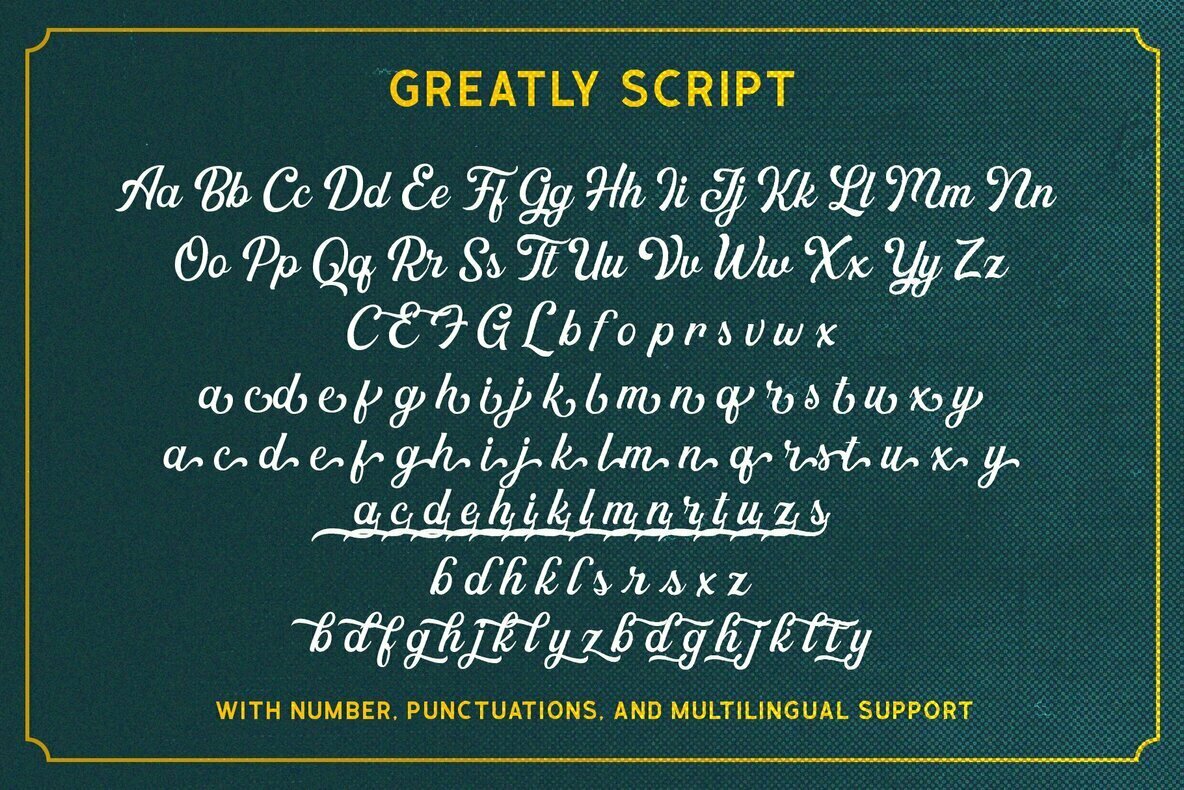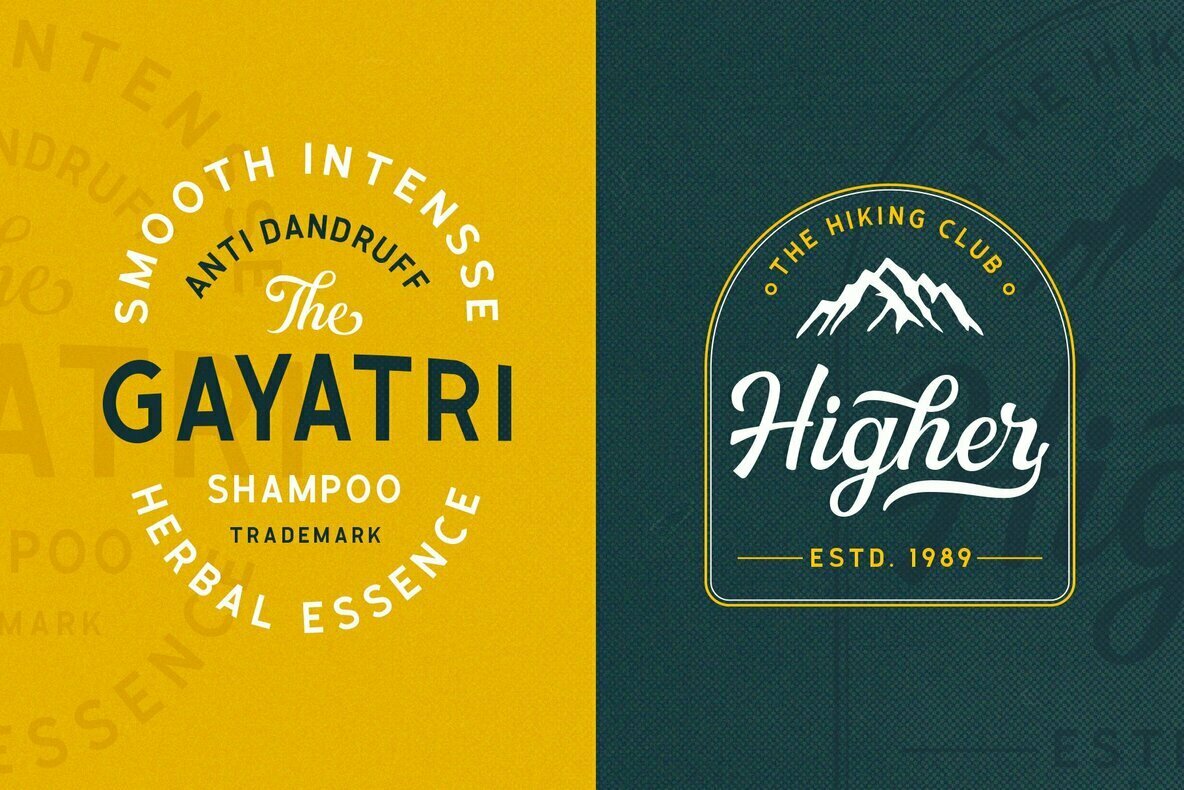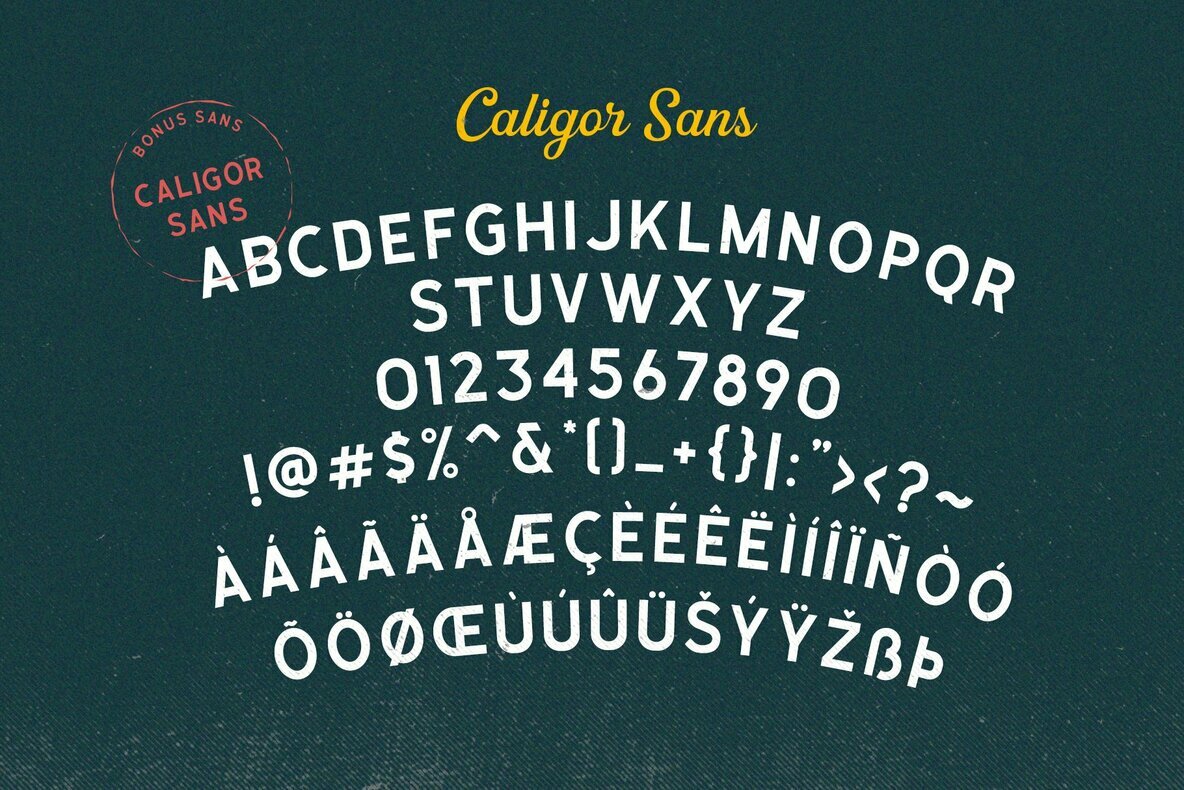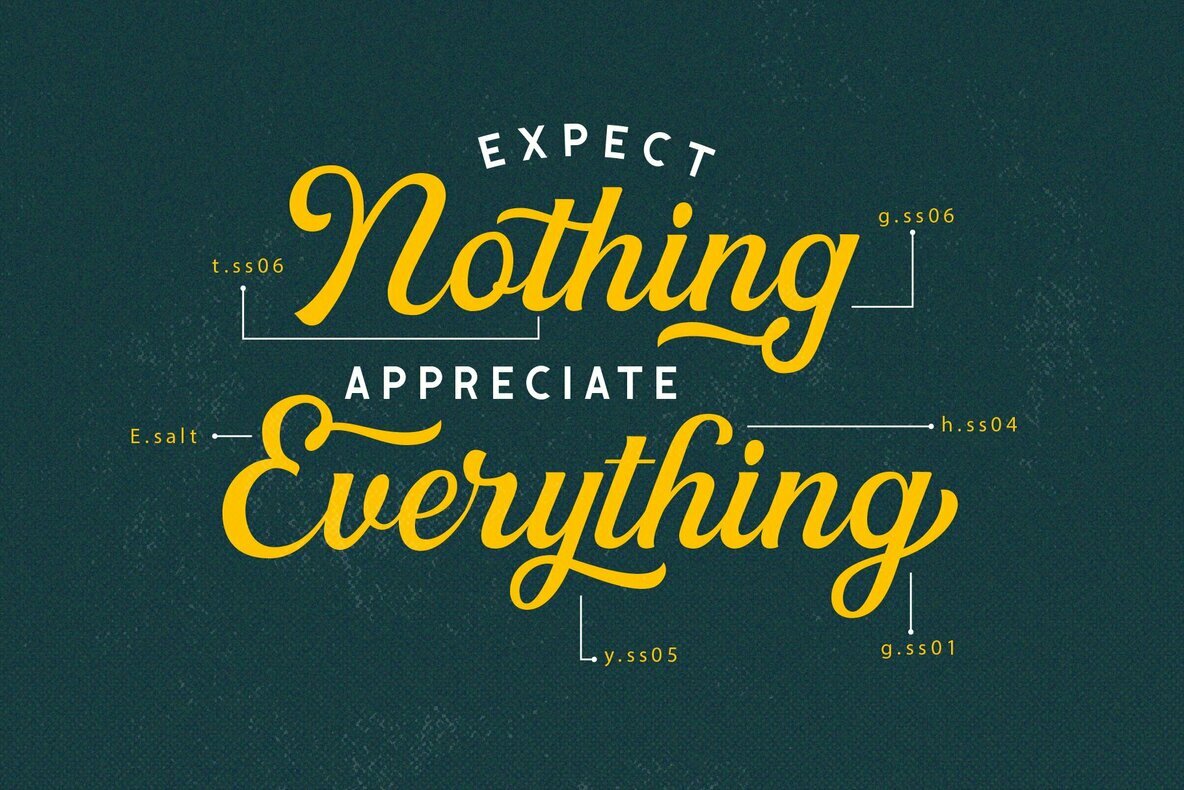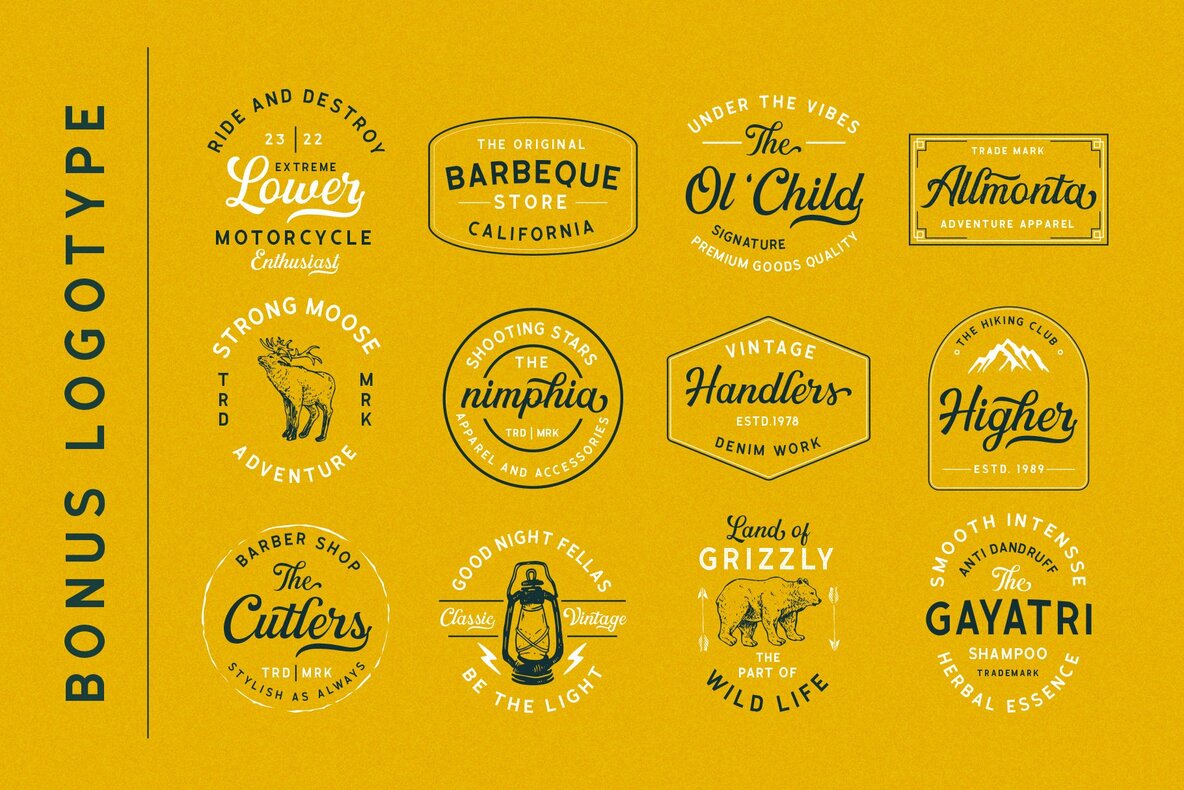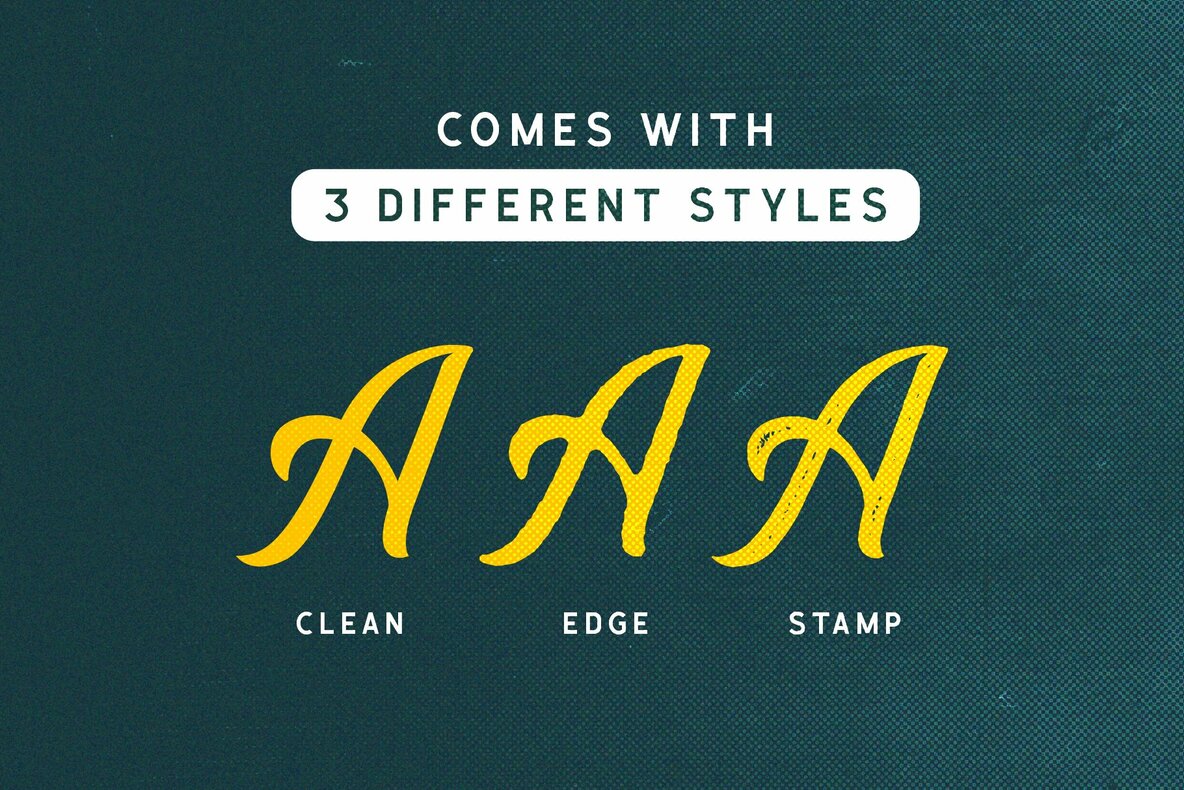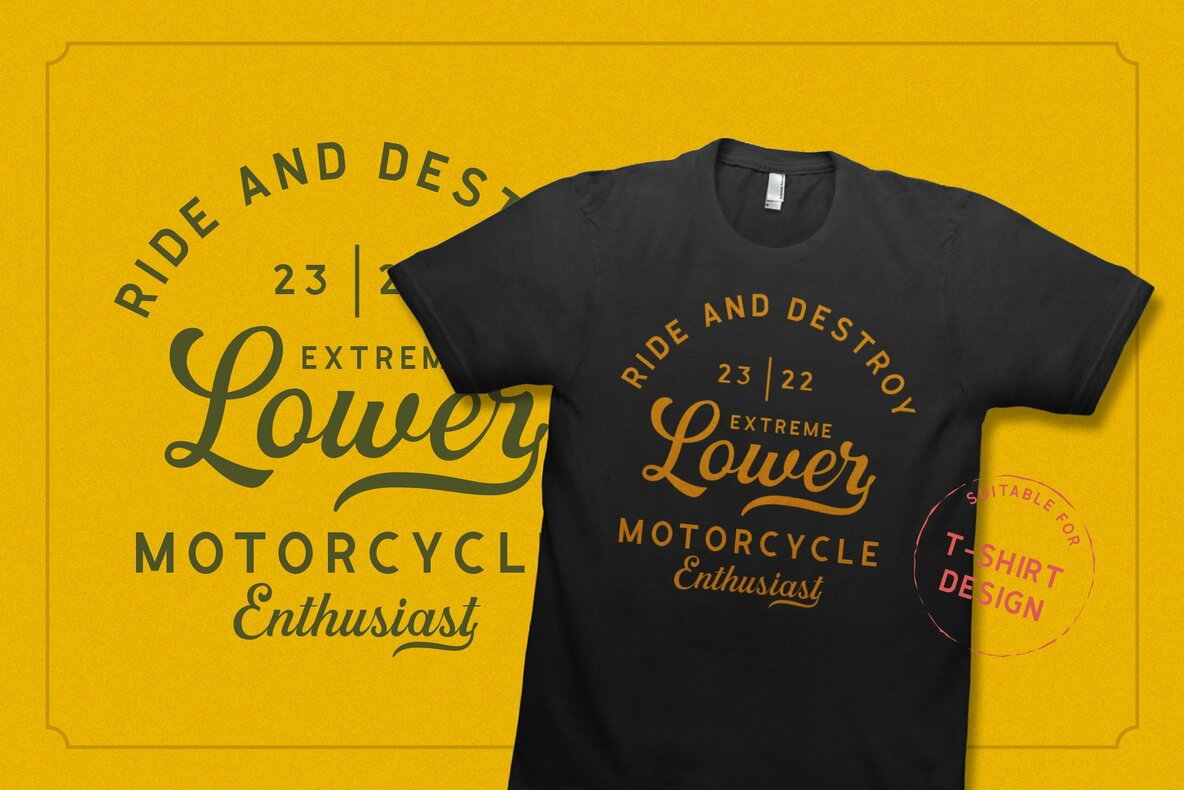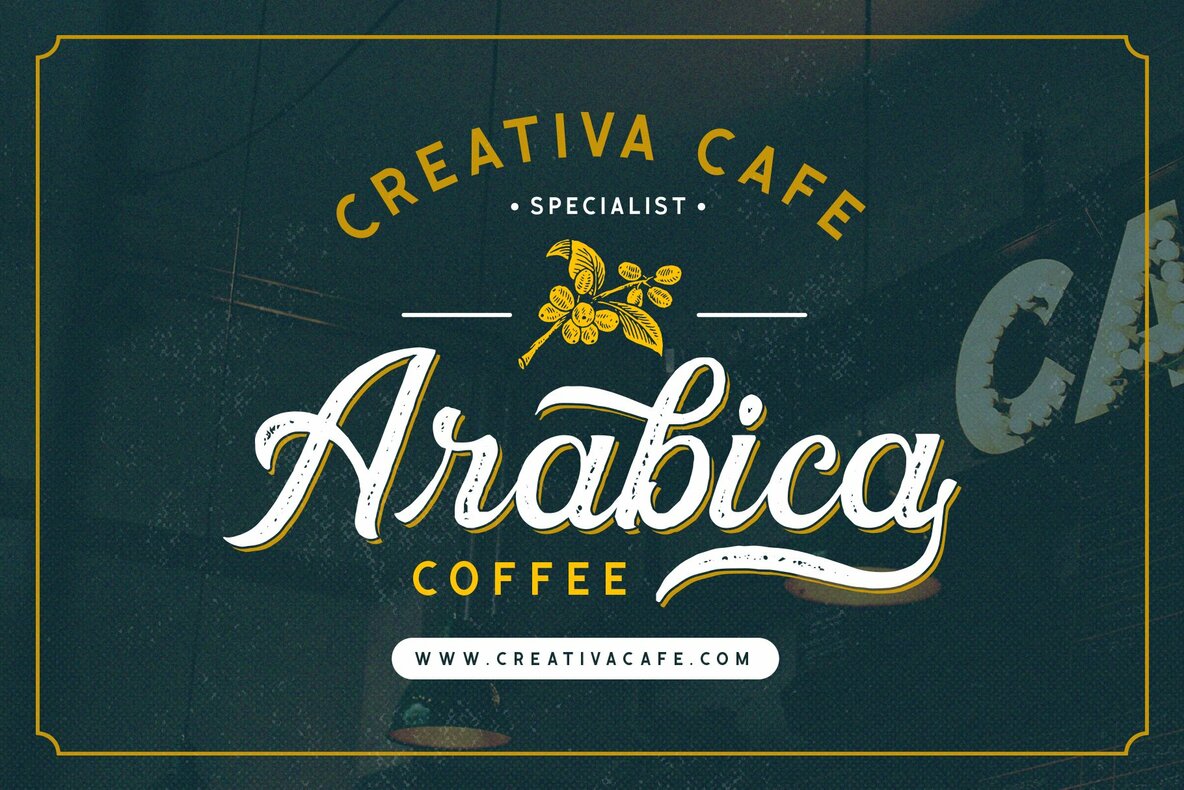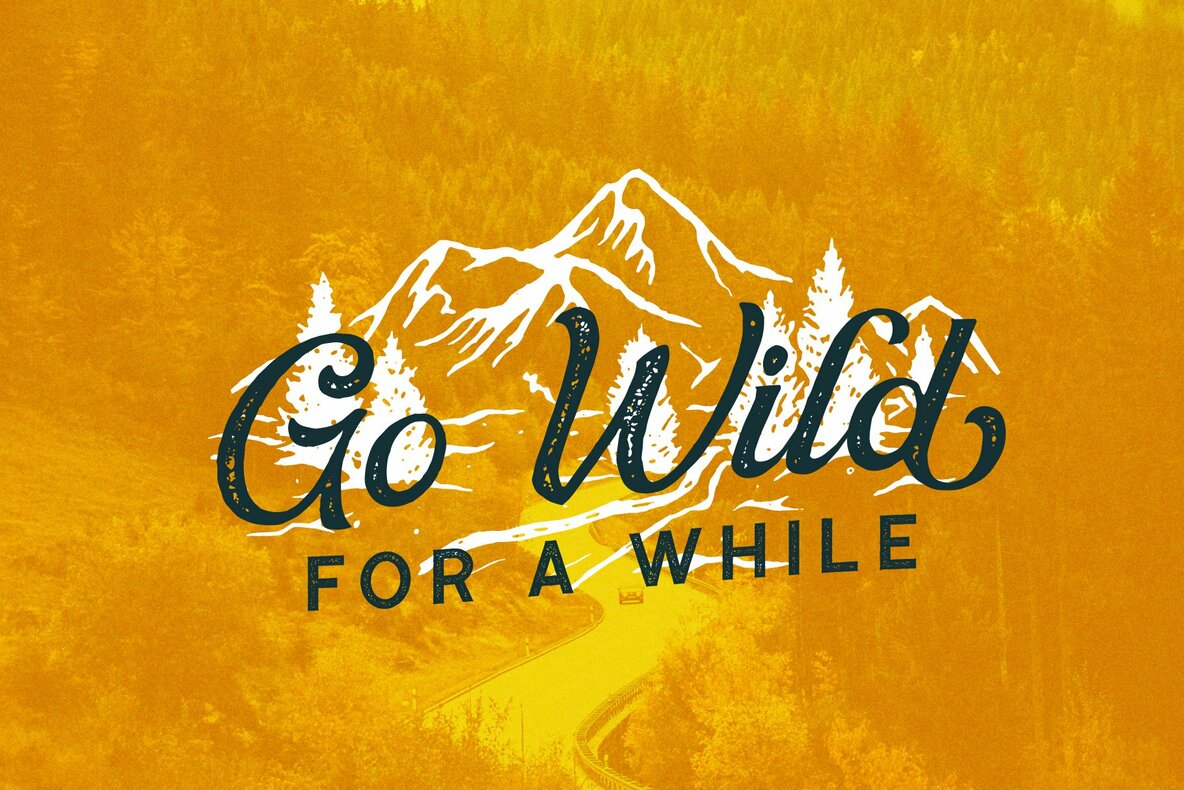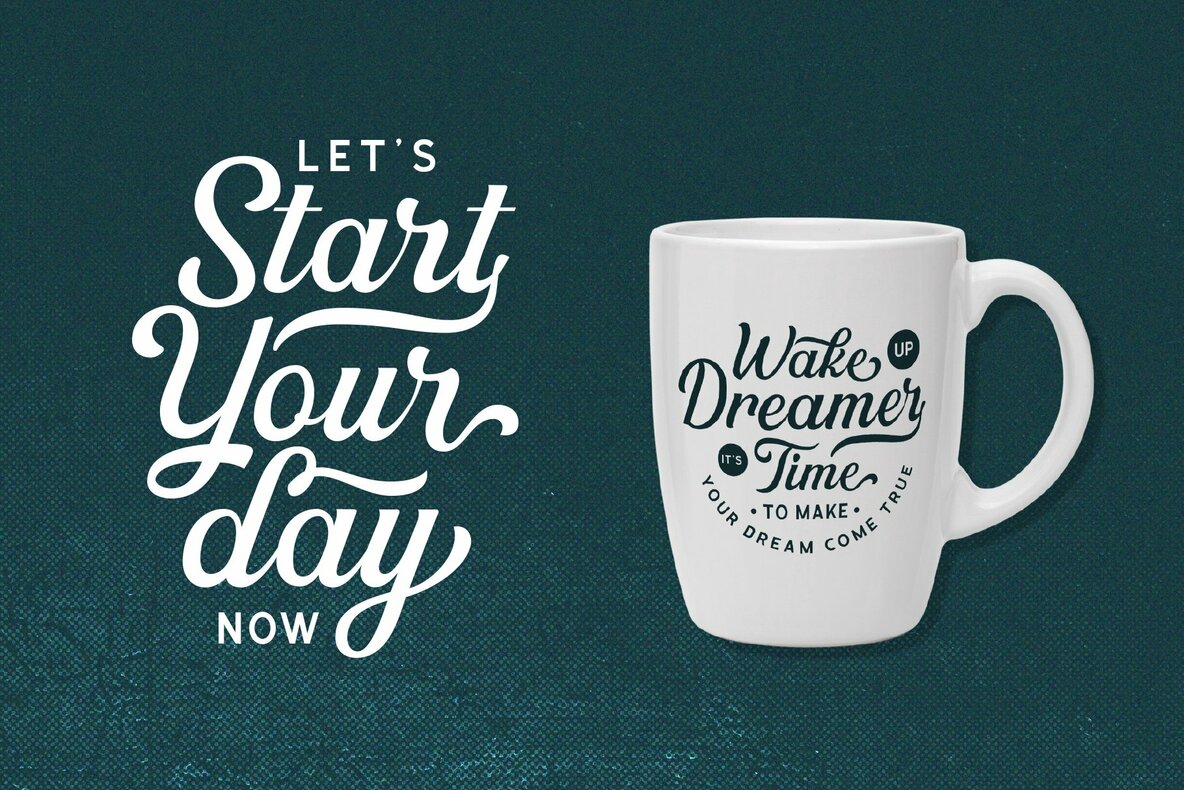
Greatly Font Duo
The Greatly Font Duo, crafted by Letterhend Studio, merges script and sans-serif styles suitable for a diverse range of design endeavors. This duo exudes a classic vibe, making it an excellent choice for those in need of a typeface that can enrich projects such as logotypes, apparel designs, invitations, branding materials, packaging, and advertisements.Greatly Font Duo: A Versatile Typeface for Modern Design
The Greatly Font Duo stands as a sophisticated choice for designers seeking a balance between classic elegance and versatile functionality.